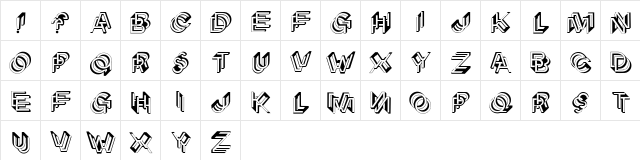
Architypogra Regular
Design Context for Architypogra Typeface
Architypogra is a composed and adaptable typeface that performs quietly and consistently across a wide range of design contexts.